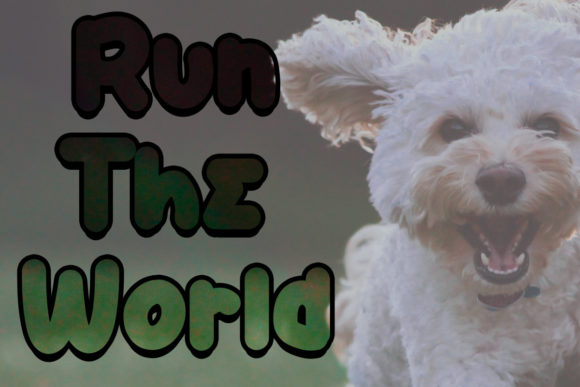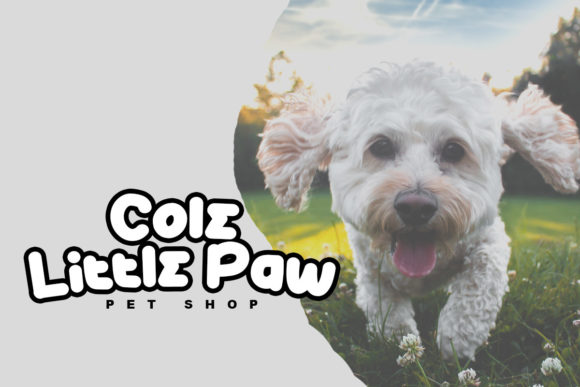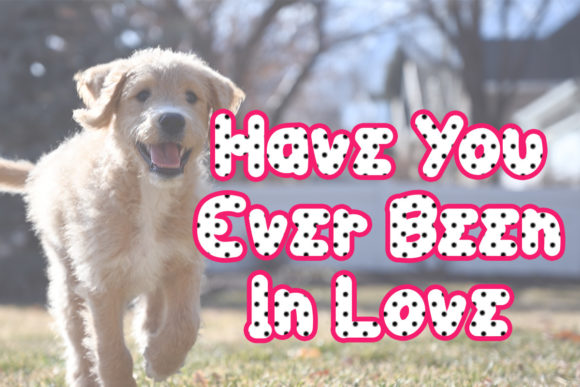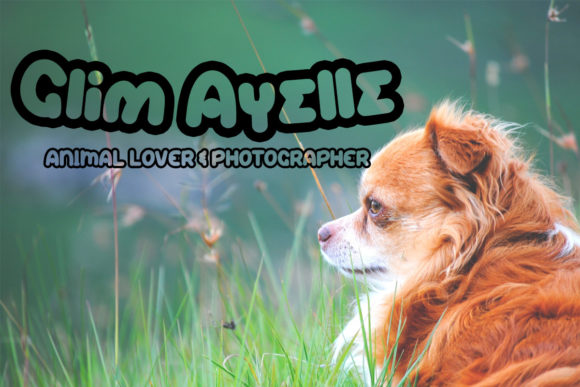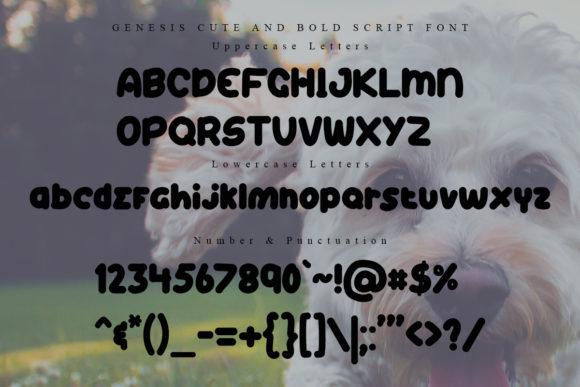
Discover the Charm of Genesis Font: A Friendly and Versatile Display Font
Are you tired of using the same old fonts for your designs and crafts? Look no further than Genesis Font, a childish and easy-to-read display font that’s perfect for adding a touch of friendliness to your projects. In this article, we’ll explore the features and benefits of Genesis Font, and why it’s becoming a favorite among designers and crafters alike.
The Genesis Font Difference: Impeccable Friendliness
Genesis Font is designed to convey a sense of warmth and approachability, making it perfect for a wide range of applications. Whether you’re creating digital designs, presentations, greeting cards, or crafts, this font is sure to bring a smile to your audience’s faces. Its childish and playful vibe is reminiscent of handwritten fonts, but with a clean and modern twist that makes it easy to read and understand.
What Makes Genesis Font So Special?
So, what sets Genesis Font apart from other display fonts on the market? Here are just a few reasons why it’s becoming a go-to font for designers and crafters:
- Easy to Read: Genesis Font is designed to be highly legible, even at small sizes. This makes it perfect for digital designs, presentations, and crafts where text needs to be clear and easy to understand.
- Versatile: Whether you’re creating a children’s book, a greeting card, or a digital design, Genesis Font is versatile enough to adapt to any style or theme.
- Friendliness: The font’s childish and playful vibe conveys a sense of friendliness and approachability, making it perfect for projects where you want to connect with your audience.
- Crafty: Genesis Font is perfect for crafty projects like scrapbooking, journaling, and card making. Its playful vibe adds a personal touch to any craft project.
Using Genesis Font in Your Designs and Crafts
Genesis Font is incredibly easy to use, and can be applied to a wide range of projects. Here are a few ideas to get you started:
- Digital Designs: Use Genesis Font in your digital designs, such as social media graphics, blog posts, and email newsletters.
- Presentations: Add a touch of friendliness to your presentations with Genesis Font. It’s perfect for creating engaging and interactive slides.
- Greeting Cards: Create personalized greeting cards with Genesis Font. Its playful vibe is sure to make your cards stand out.
- Crafts: Use Genesis Font in your craft projects, such as scrapbooking, journaling, and card making. Its childish and playful vibe adds a personal touch to any craft project.
Tips and Tricks for Getting the Most Out of Genesis Font
Here are a few tips and tricks for getting the most out of Genesis Font:
- Experiment with Colors: Genesis Font looks great in a variety of colors. Experiment with different colors to find the perfect combination for your project.
- Mix and Match: Don’t be afraid to mix and match Genesis Font with other fonts. Its playful vibe pairs well with a wide range of font styles.
- Use it for Headings: Genesis Font is perfect for headings and titles. Use it to add a touch of friendliness to your project.
In conclusion, Genesis Font is a versatile and friendly display font that’s perfect for designers and crafters alike. Its childish and playful vibe conveys impeccable friendliness, making it perfect for a wide range of applications. With its ease of use, versatility, and friendliness, Genesis Font is sure to become your go-to font for all your design and craft projects.